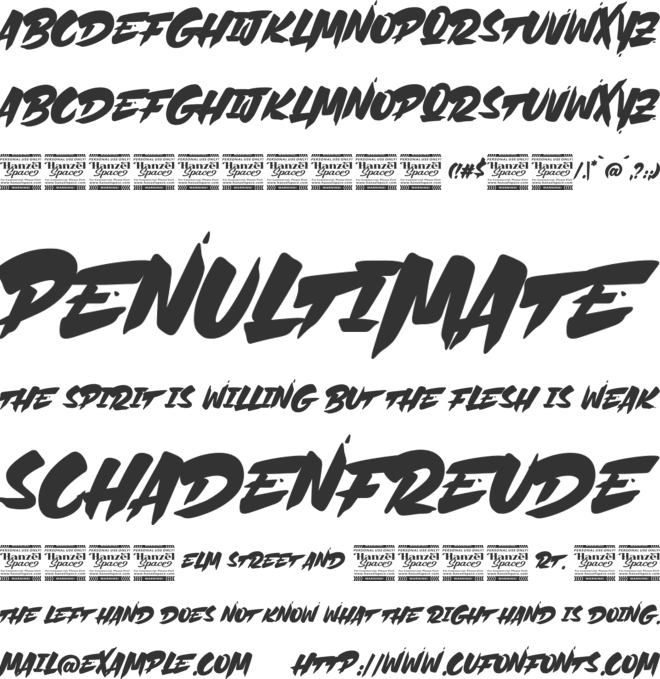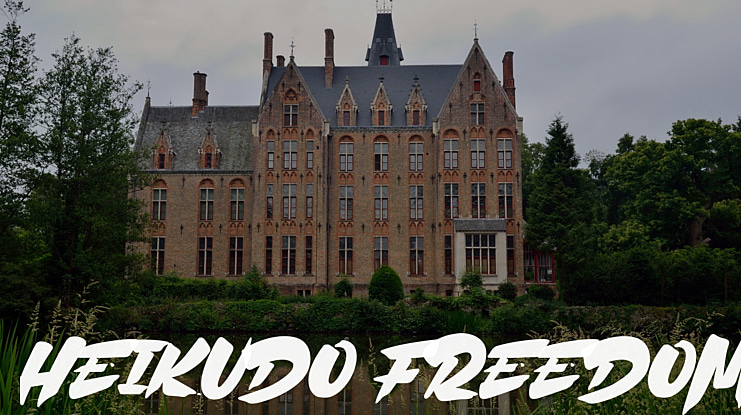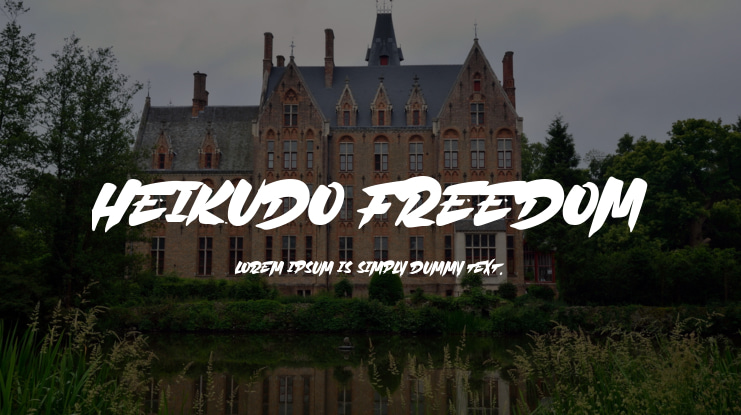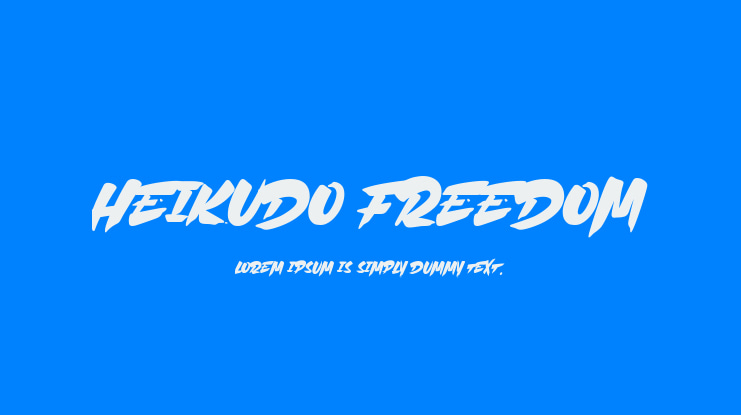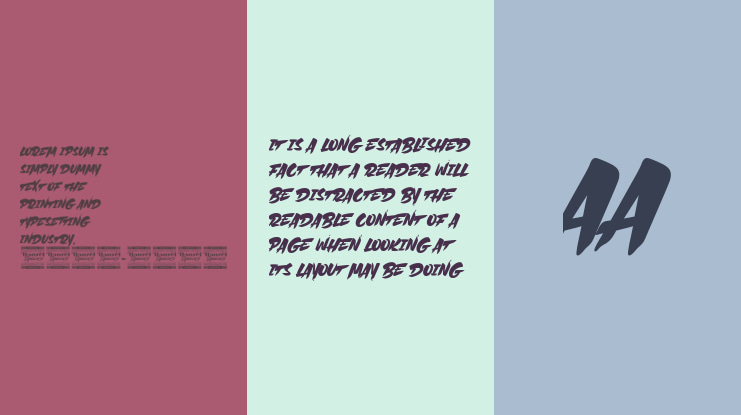
Heikudo Freedom is a versatile typeface that has proven its usefulness over time. The unique letter strokes on each glyph give it a natural appearance. This font is perfect for branding, film titles, book titles, quotes, product names, and any other creative projects you wish to undertake.
- Full set of standard alphabets and punctuation
- Multilingual characters (ÁÂÄÀÅÃÆÇÐÉÊËÈÍÎÏÌÑÓÔÖÒØÕÚÛÜÙẂŴẄẀÝŶŸỲ áâäàåãæçðéêëèíîïìñóôöòøõœúûüùẃŵẅẁýŷÿỳ€£¥)